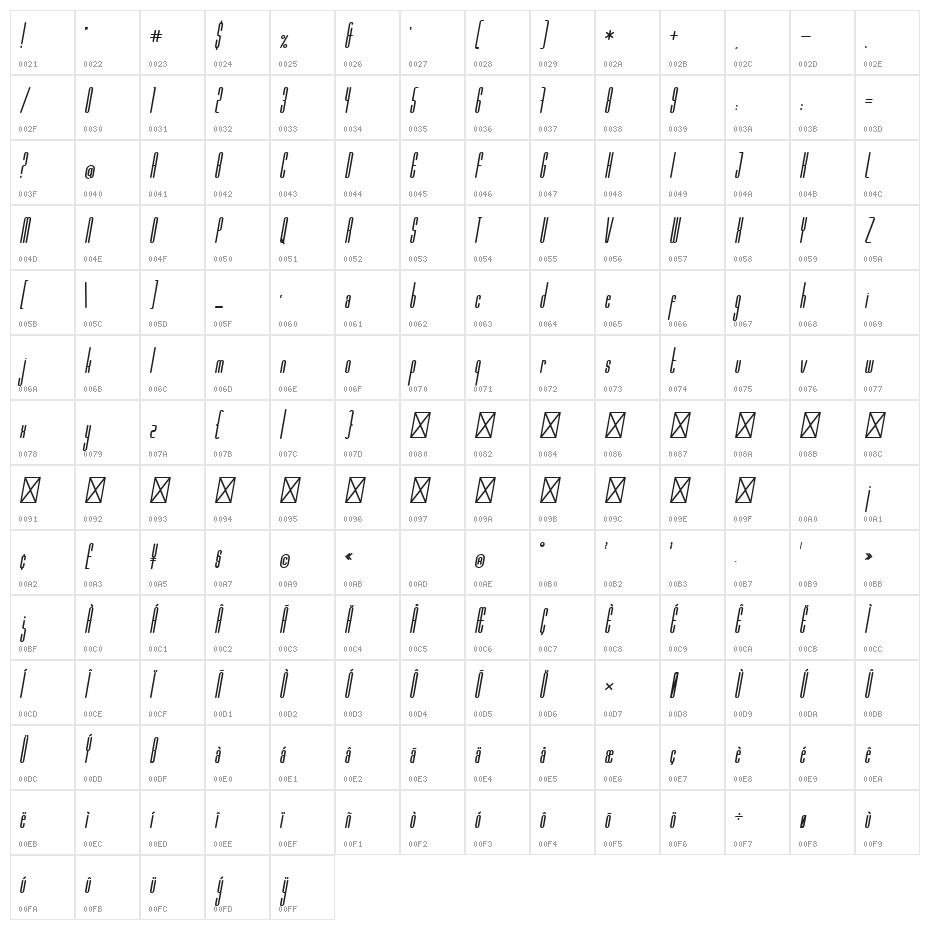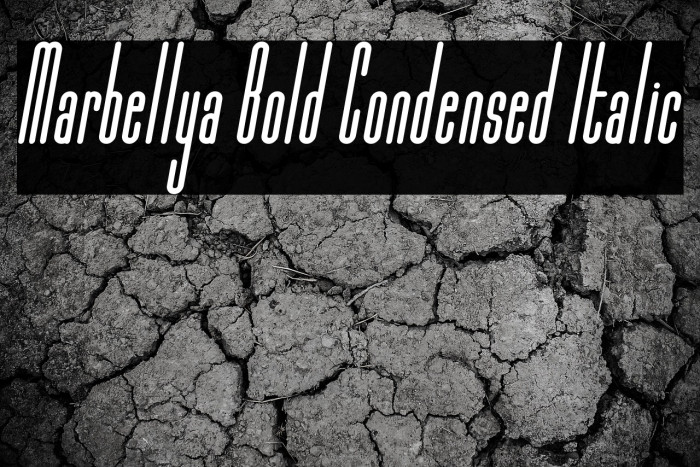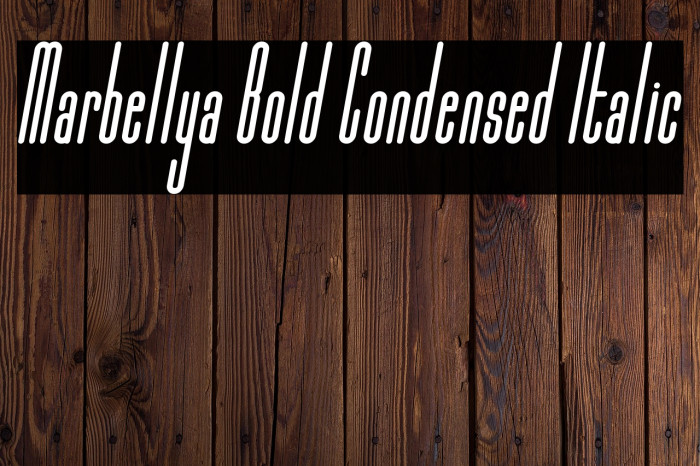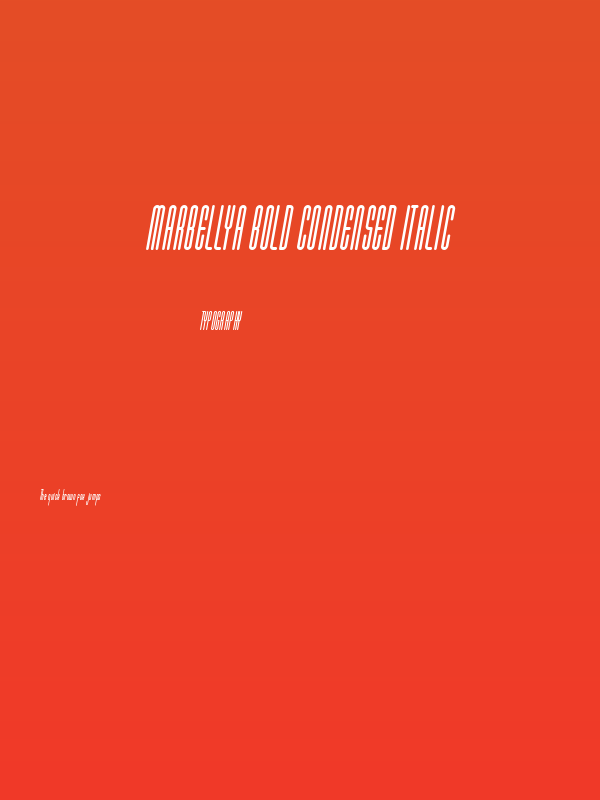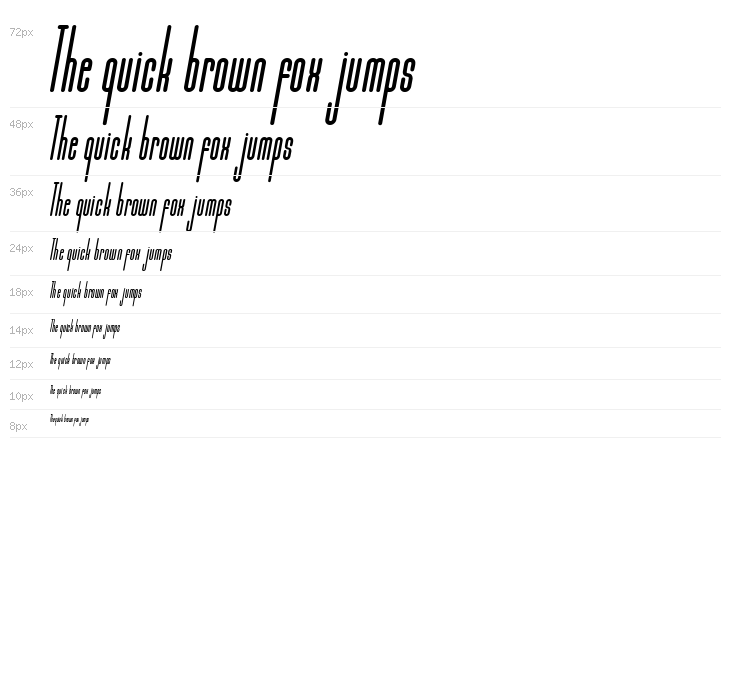
Marbellya Bold Condensed Italic Font
Marbellya Bold Condensed Italic Description
This font features a bold and condensed style with a distinct italic slant, giving it a dynamic and modern appearance. The characters are elongated and narrow, contributing to a sleek and streamlined look. The uppercase and lowercase letters maintain a consistent height, enhancing readability while preserving an elegant flow. The numerals and special characters are designed to match the overall aesthetic, ensuring uniformity across all text elements. The font's condensed nature makes it suitable for space-saving applications, while its boldness ensures that it remains legible and impactful.